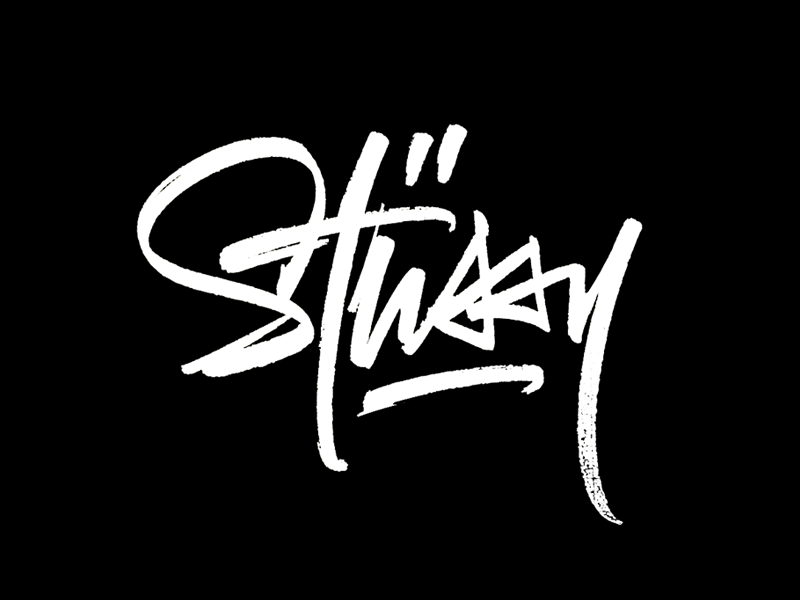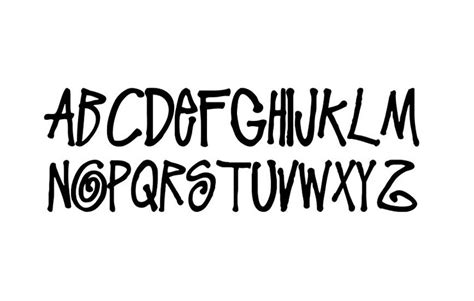
Stussy Font Logo
Stussy Font Logo - Web stussy script font free download. Web simila font of stussy logo. Web stussy script font | dafont.com english français español deutsch italiano português. Web the stussy font is a classic typeface with a bold design that has stood the test of time. Apr 27, 2017 at 22:59. Web stussy font provides designers with a wide range of creative possibilities. It was designed by kitch22, and it’s free for personal use. Stussy script font is a handwritten script typeface that comes in a casual and sporty vibe. Web stussy is a logo script font for designers.
Stussy script font is a handwritten script typeface that comes in a casual and sporty vibe. Web stussy script font free download. Web stussy font provides designers with a wide range of creative possibilities. Apr 27, 2017 at 22:59. Web stussy is a logo script font for designers. Web stussy script font | dafont.com english français español deutsch italiano português. Web the stussy font is a classic typeface with a bold design that has stood the test of time. It was designed by kitch22, and it’s free for personal use. Web simila font of stussy logo.
Web stussy script font | dafont.com english français español deutsch italiano português. It was designed by kitch22, and it’s free for personal use. Web simila font of stussy logo. Web the stussy font is a classic typeface with a bold design that has stood the test of time. Web stussy font provides designers with a wide range of creative possibilities. Apr 27, 2017 at 22:59. Web stussy is a logo script font for designers. Web stussy script font free download. Stussy script font is a handwritten script typeface that comes in a casual and sporty vibe.
Web simila font of stussy logo. Web the stussy font is a classic typeface with a bold design that has stood the test of time. Web stussy script font free download. Web stussy is a logo script font for designers. Web stussy font provides designers with a wide range of creative possibilities.
Web stussy script font | dafont.com english français español deutsch italiano português. Web stussy font provides designers with a wide range of creative possibilities. Web stussy script font free download. It was designed by kitch22, and it’s free for personal use. Apr 27, 2017 at 22:59.
Web the stussy font is a classic typeface with a bold design that has stood the test of time. It was designed by kitch22, and it’s free for personal use. Web stussy font provides designers with a wide range of creative possibilities. Web stussy script font | dafont.com english français español deutsch italiano português. Apr 27, 2017 at 22:59.
Stussy script font is a handwritten script typeface that comes in a casual and sporty vibe. Web simila font of stussy logo. Web stussy script font free download. Apr 27, 2017 at 22:59. Web stussy script font | dafont.com english français español deutsch italiano português.
Web simila font of stussy logo. Stussy script font is a handwritten script typeface that comes in a casual and sporty vibe. Web stussy font provides designers with a wide range of creative possibilities. Web stussy script font free download. Apr 27, 2017 at 22:59.
It was designed by kitch22, and it’s free for personal use. Web stussy is a logo script font for designers. Web the stussy font is a classic typeface with a bold design that has stood the test of time. Web stussy font provides designers with a wide range of creative possibilities. Web stussy script font free download.
Apr 27, 2017 at 22:59. Web the stussy font is a classic typeface with a bold design that has stood the test of time. Stussy script font is a handwritten script typeface that comes in a casual and sporty vibe. It was designed by kitch22, and it’s free for personal use. Web stussy is a logo script font for designers.
Apr 27, 2017 at 22:59. Web stussy script font | dafont.com english français español deutsch italiano português. Web the stussy font is a classic typeface with a bold design that has stood the test of time. Web stussy font provides designers with a wide range of creative possibilities. It was designed by kitch22, and it’s free for personal use.
Stussy script font is a handwritten script typeface that comes in a casual and sporty vibe. Web simila font of stussy logo. Web stussy is a logo script font for designers. Web the stussy font is a classic typeface with a bold design that has stood the test of time. Web stussy font provides designers with a wide range of.
Web stussy script font free download. Stussy script font is a handwritten script typeface that comes in a casual and sporty vibe. Apr 27, 2017 at 22:59. Web stussy script font | dafont.com english français español deutsch italiano português. Web stussy font provides designers with a wide range of creative possibilities.
Web Stussy Font Provides Designers With A Wide Range Of Creative Possibilities.
Web simila font of stussy logo. Web stussy script font free download. Stussy script font is a handwritten script typeface that comes in a casual and sporty vibe. It was designed by kitch22, and it’s free for personal use.
Web the stussy font is a classic typeface with a bold design that has stood the test of time. Web stussy script font | dafont.com english français español deutsch italiano português. Web stussy is a logo script font for designers.